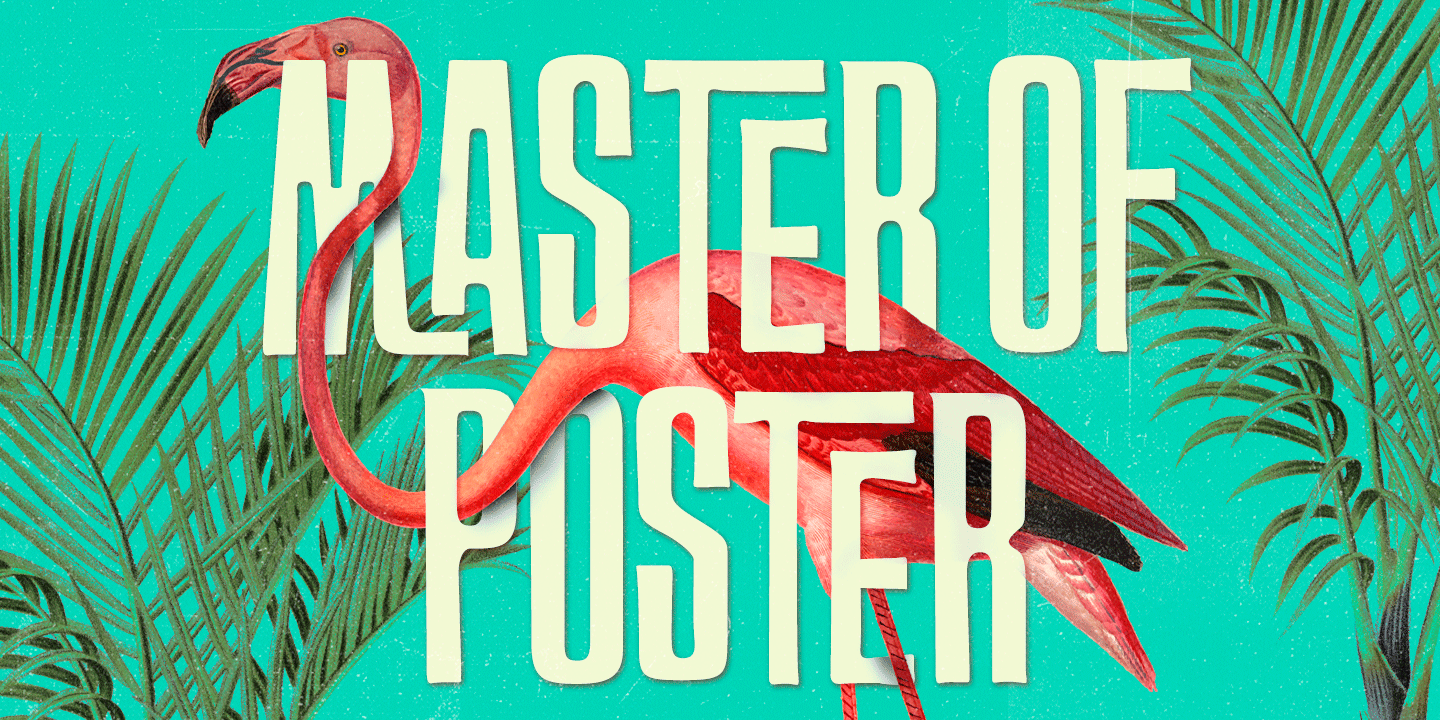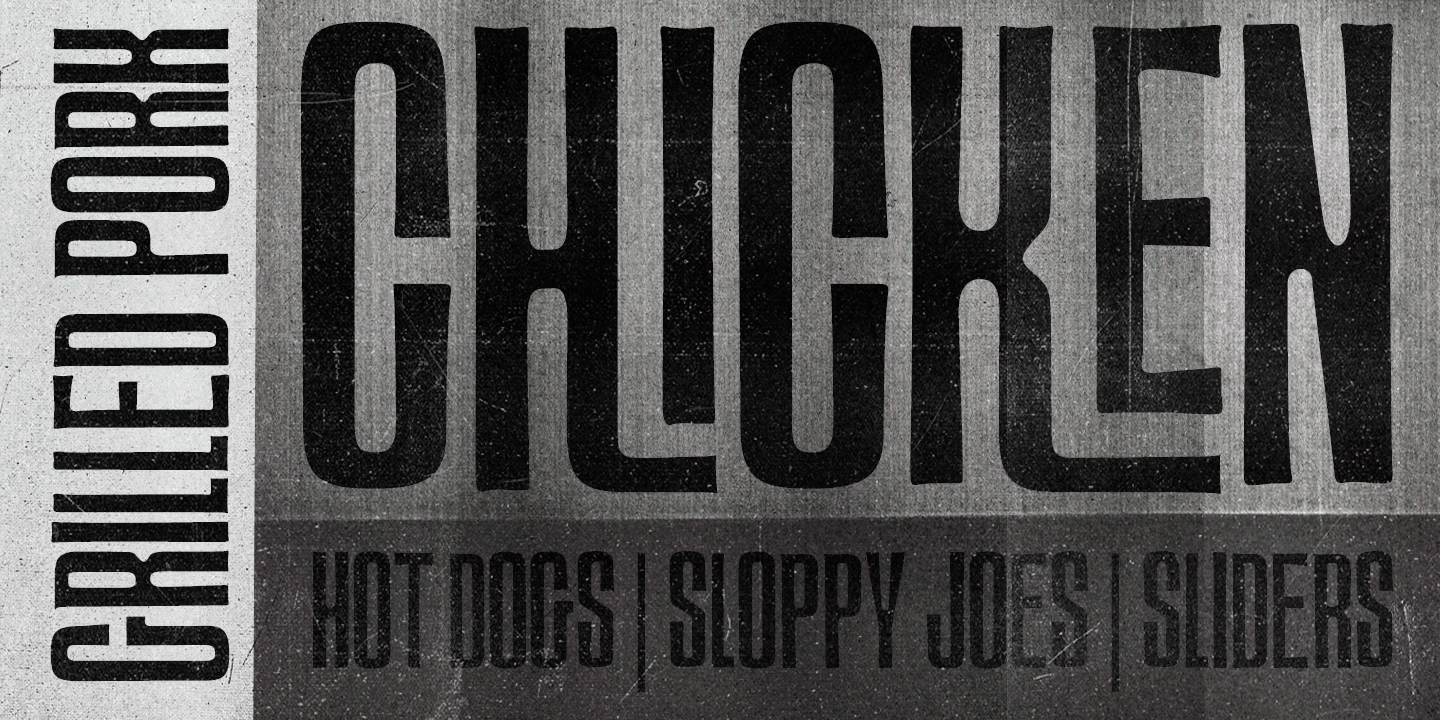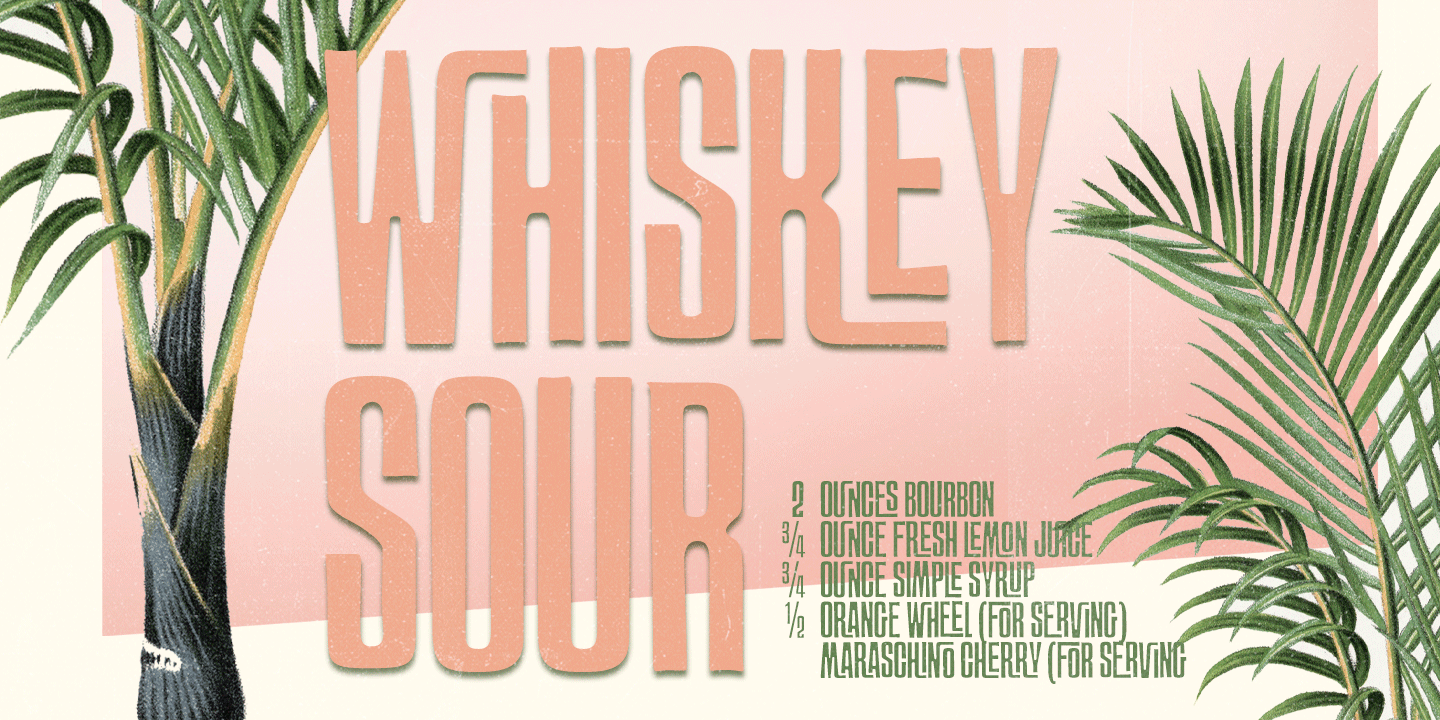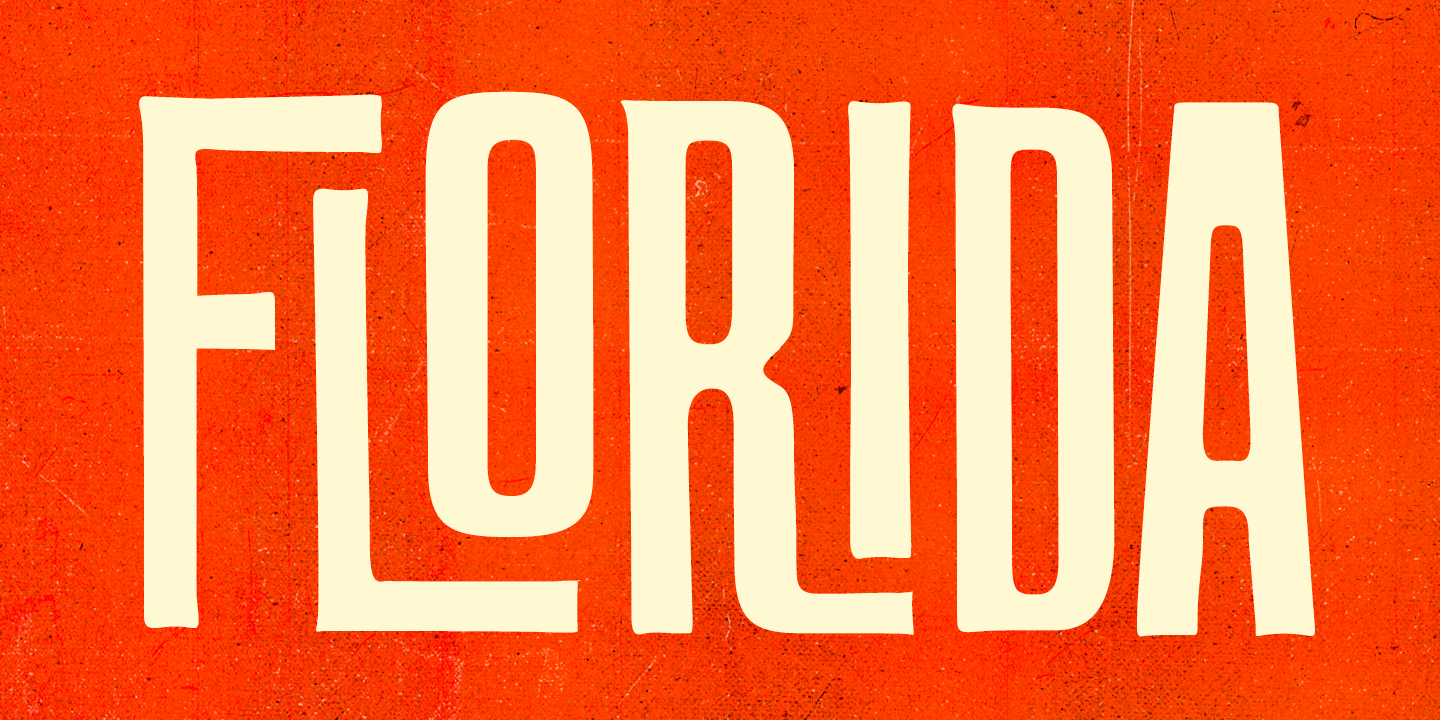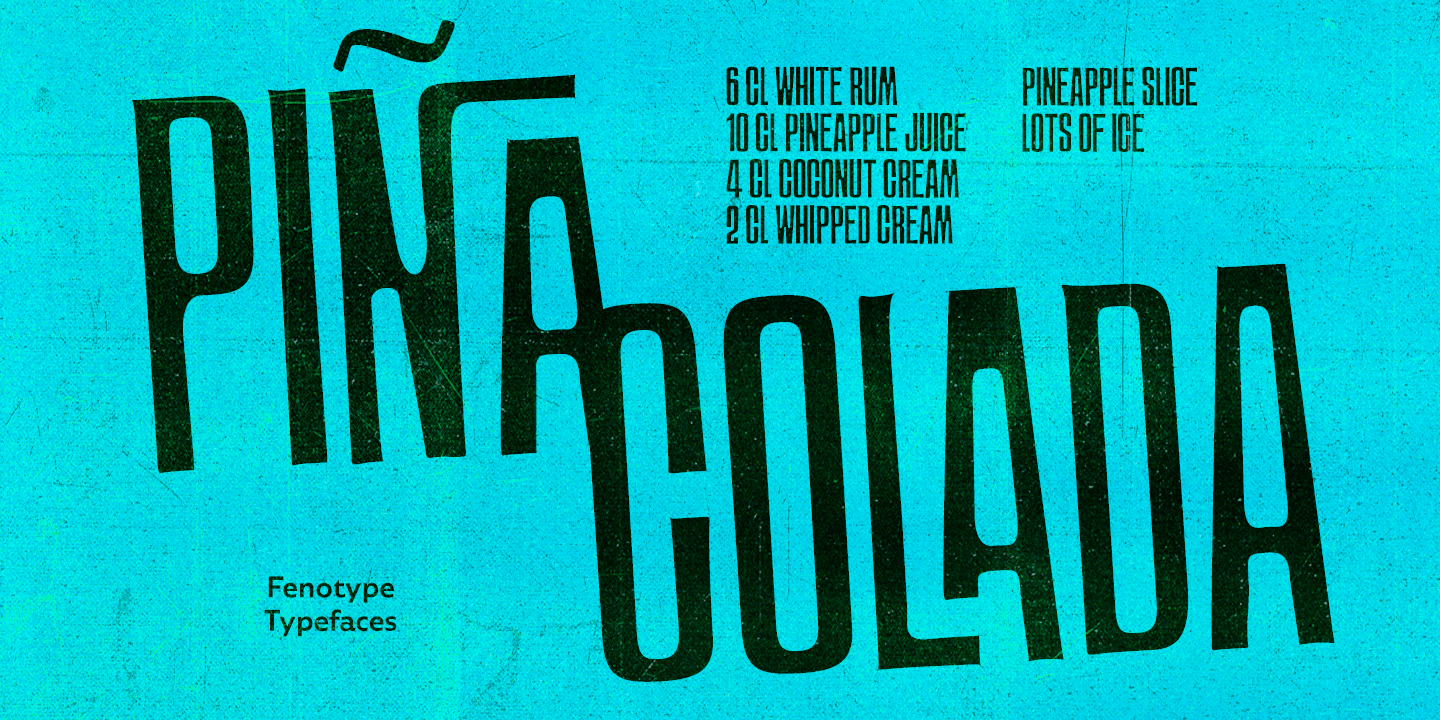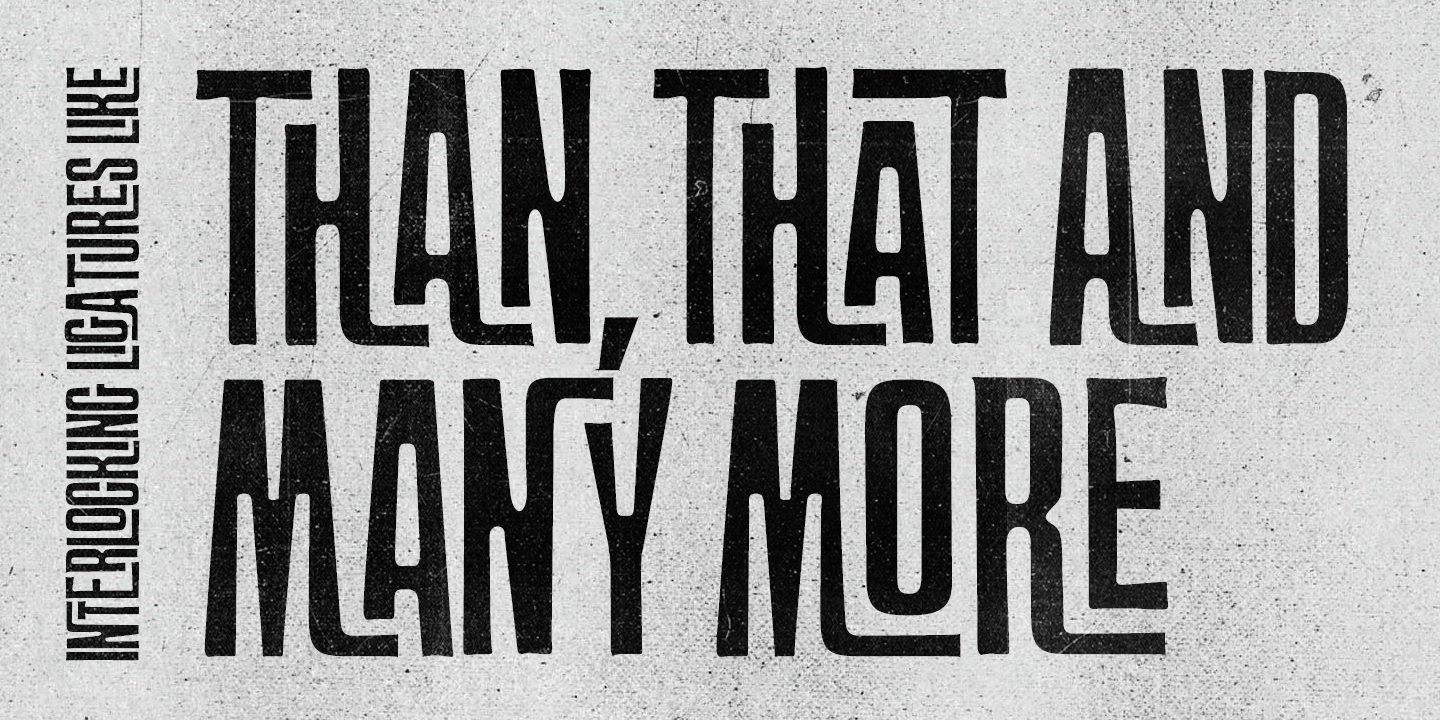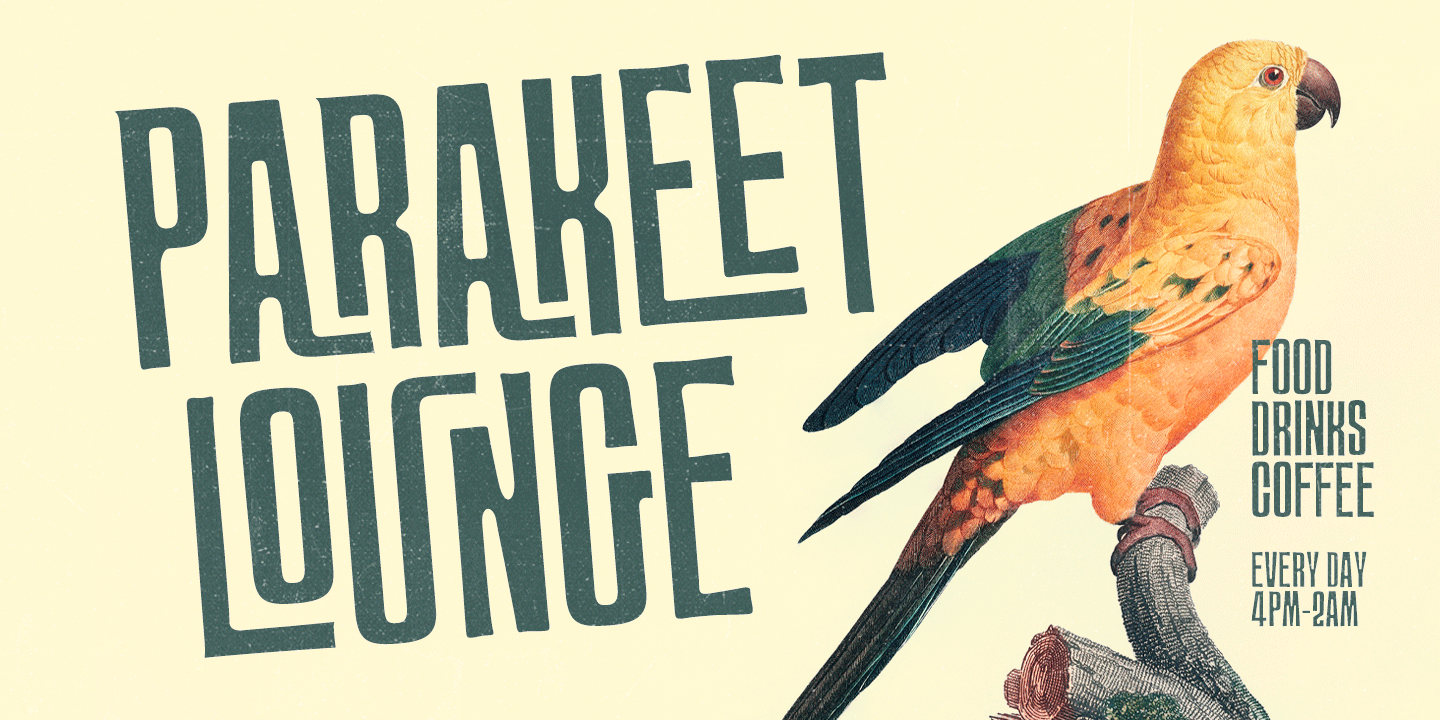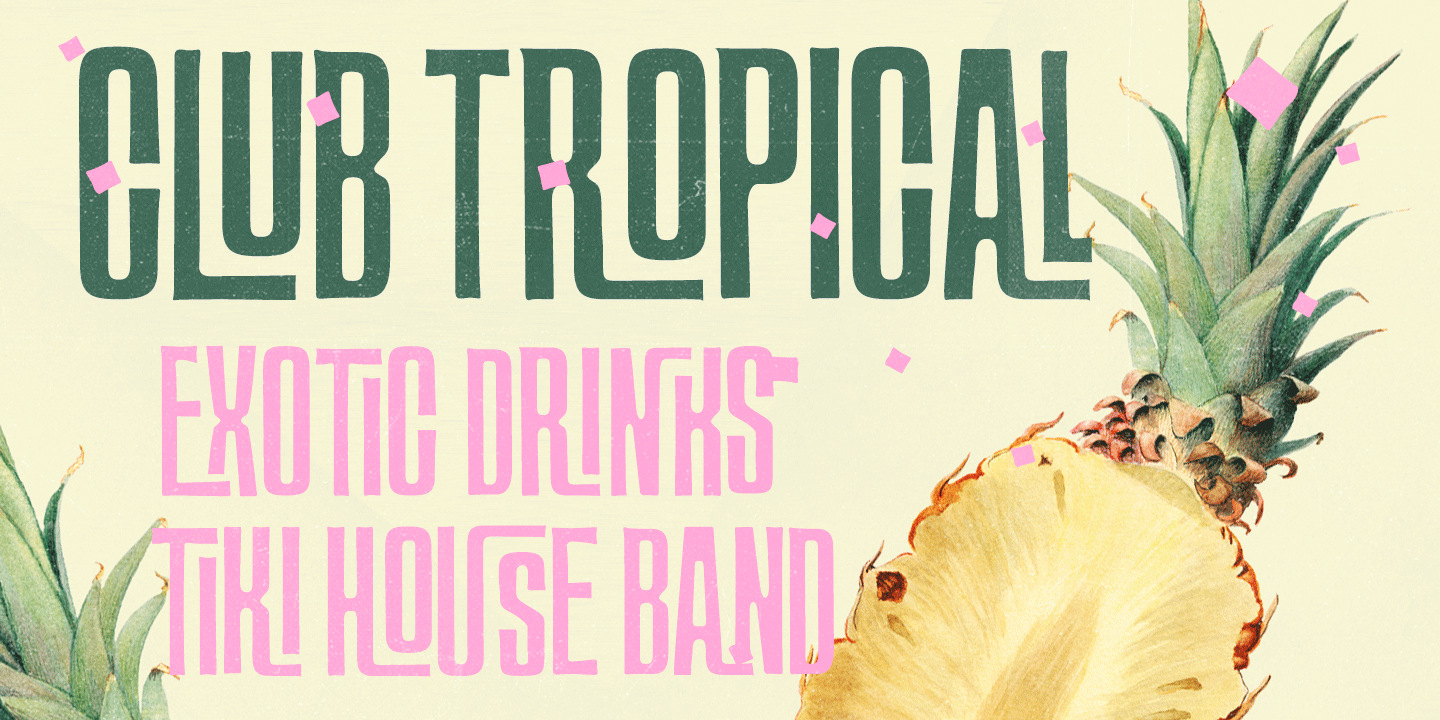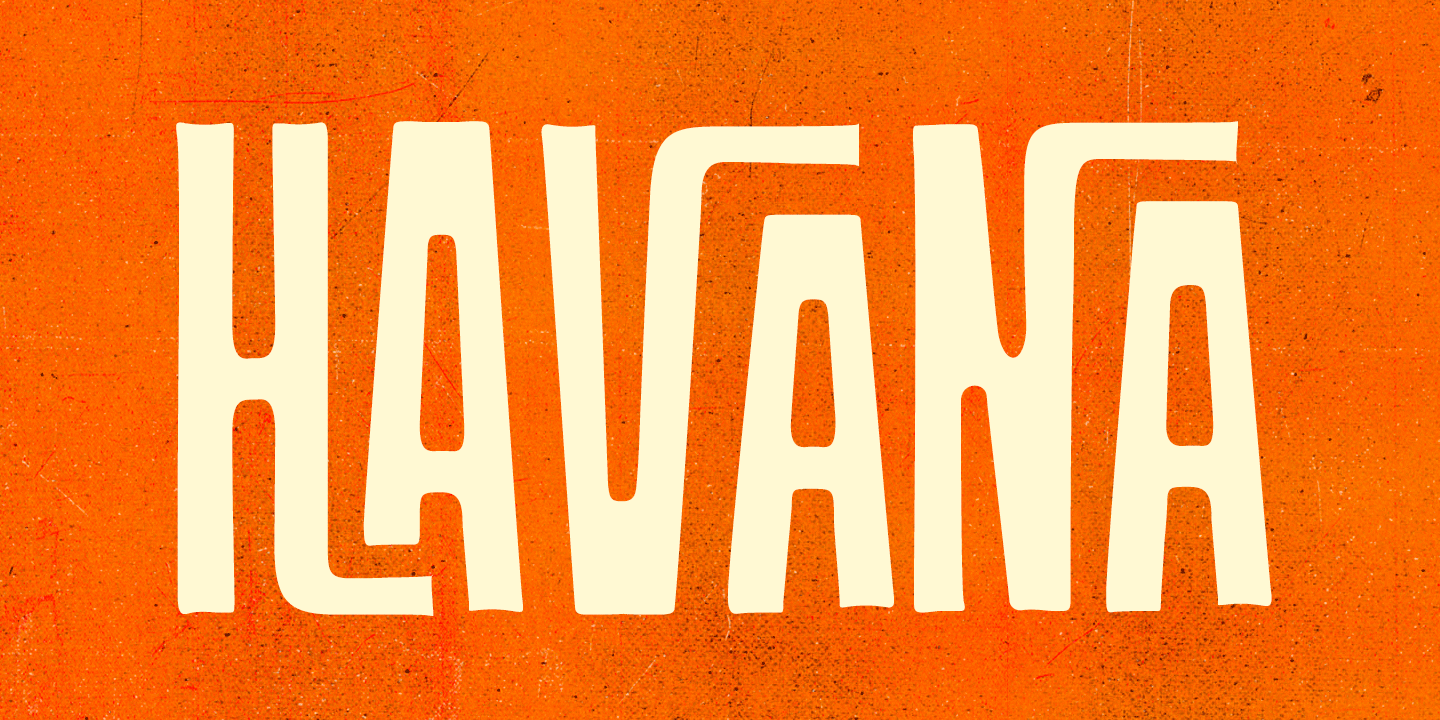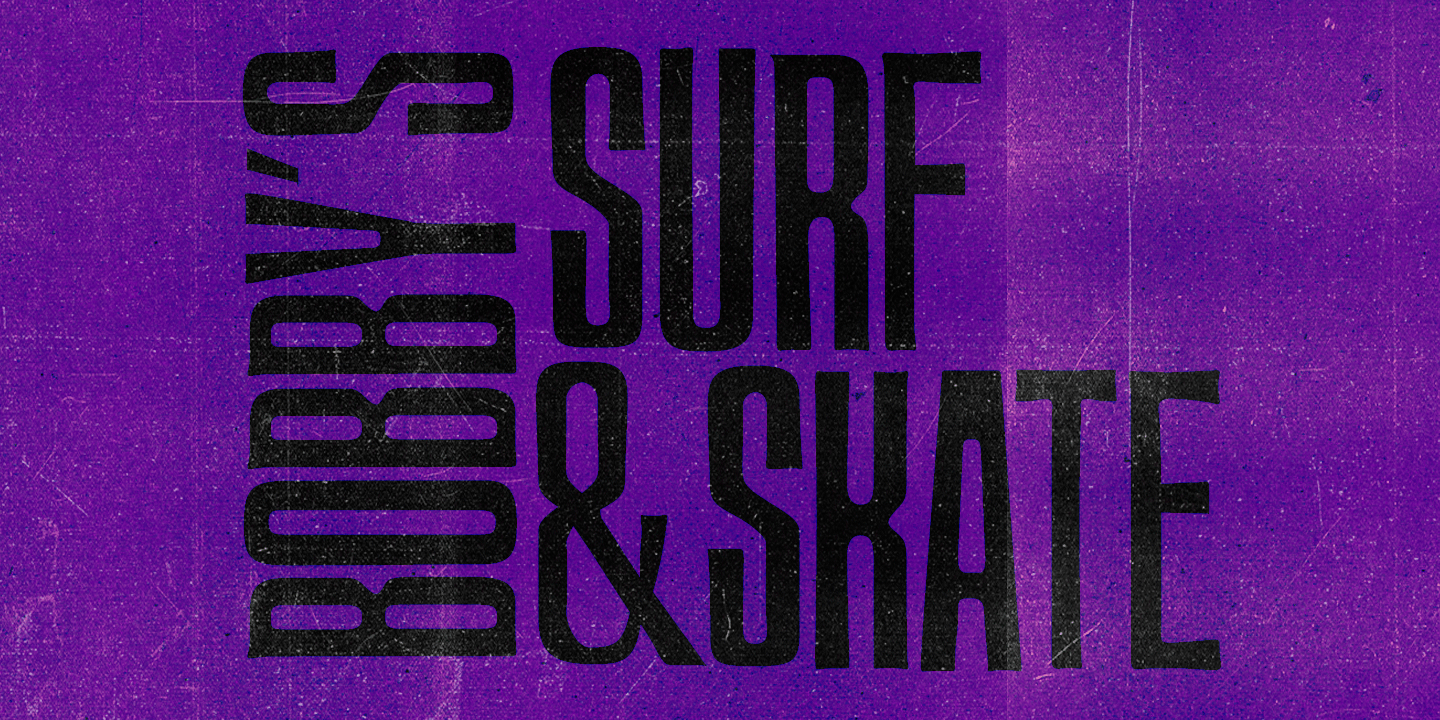
FT Master of Poster
Font Family by Fenotype
Master of Poster is a hand drawn, interlocking display typeface with tiki-vibes. Master of Poster is ultra condensed and comes in three weights - light, regular & bold. Master of Poster is fun and fast typeface for creating posters and other display use where typeface takes a bigger role.
Each style is equipped with over 450 interlocking ligatures. Ligatures are automatically on when you type in CAPS.